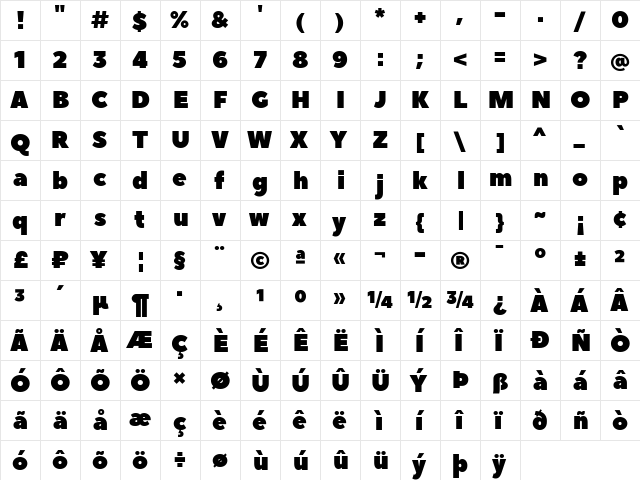
Peace Sans Regular
| Designer | Sergey Ryadovoy & Jovanny Lemonad |
Design Context for Peace Sans Typeface
Peace Sans is a composed and adaptable typeface that performs quietly and consistently across a wide range of design contexts.